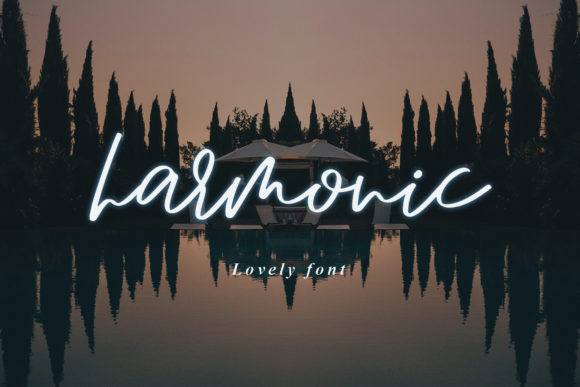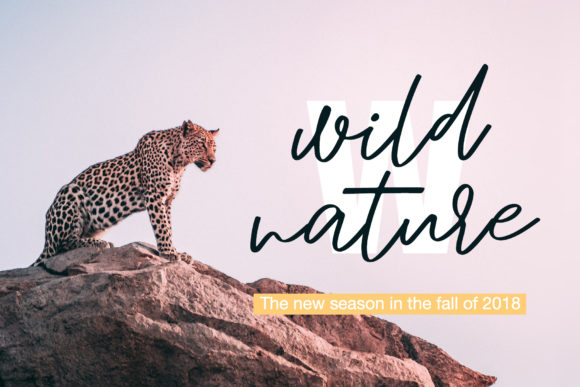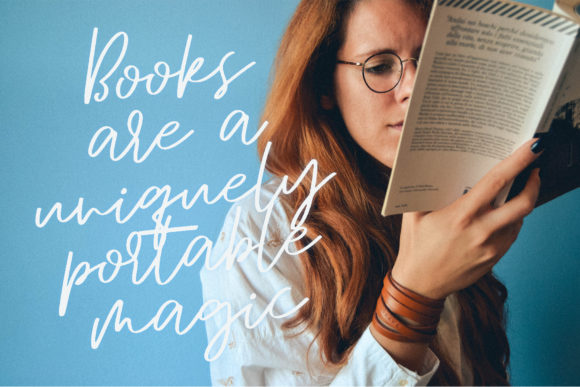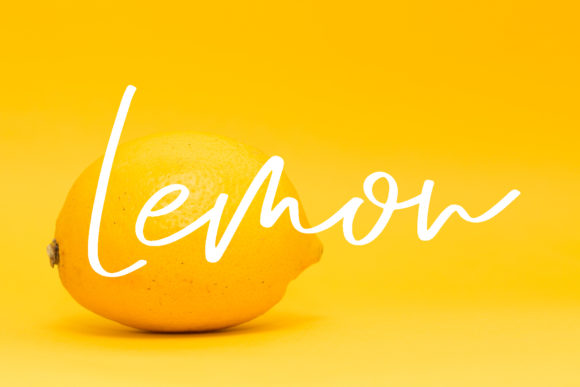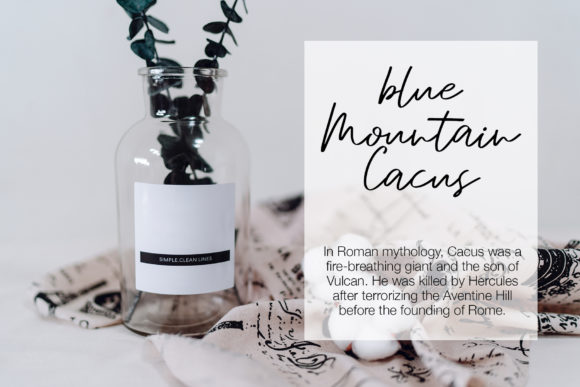
HomeScript FontsHarmonic Font Script Fonts Harmonic Font FacebookXPinterestWhatsApp Harmonic Font Poster 2 Harmonic Font Poster 3 Harmonic Font Poster 4 Harmonic Font Poster 5 About Harmonic Font Harmonic is a sweet and simple handwritten font with incredible letters. Get inspired by its authentic style! DOWNLOAD NOW People also explored Yves Yvesdrawing Font My Simple Valentine Font Heart You Font Black Pastel Font Builtiness Font Kadijha Font White Rabbit Font Grashrock Font Spring List Font 418 0 TagsHarmonic Font Previous articleQuick Signature FontNext articleDaffodil Font LEAVE A REPLY Cancel reply Comment: Please enter your comment! Name:* Please enter your name here Email:* You have entered an incorrect email address! Please enter your email address here Website: Save my name, email, and website in this browser for the next time I comment. Personal Use Free Cottage Personal Use Free Read more about this font Borg Personal Use Free Read more about this font Critical Personal Use Free Read more about this font Written by Hand Personal Use Free Read more about this font BLOG Using Fonts in Digital Marketing: Tips to Strengthen Your Brand Identity In the realm of digital marketing, every visual element plays a crucial role in shaping a brand's identity, and fonts are no exception. The... Fonts That Capture the Spirit of New York City Transform Your Website: Elevate Your Typography with 7 Best Web Font Generators Where to Buy American Fonts Online in 2024